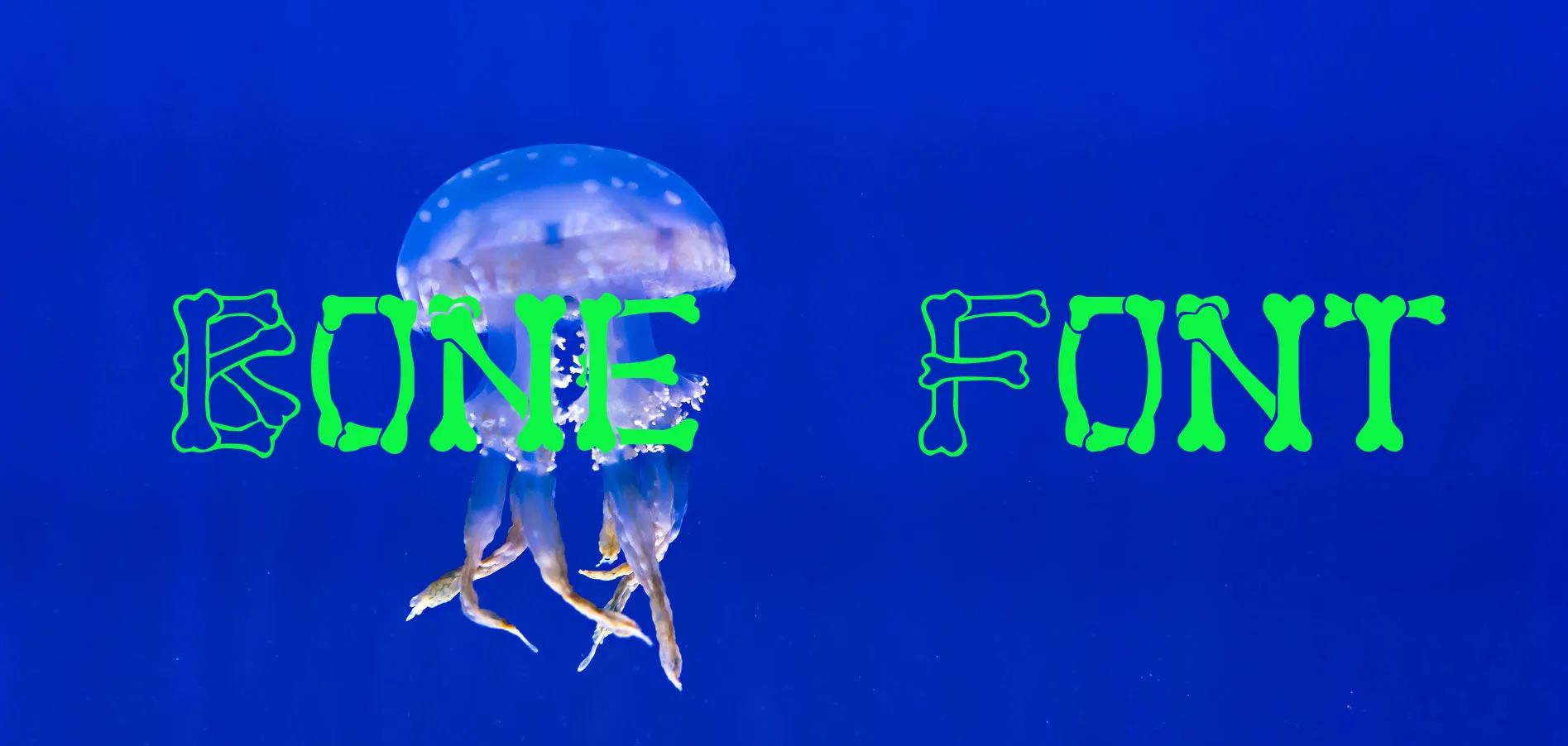
Bone Font Family is a scary but a bit comic and friendly that is perfect for illustrating conceptual parties, horror movies posters, and Scary Books Covers. This typeface is not about scaring the daylights out of your friends. The designer of this typeface is Haunted House Fonts.
This decorative font has one regular style that is providing 62 scarry characters including uppercase, lowercase, numbers, general punctuation, symbols, and many other icons included in this typeface.
| Name | Bone Font |
| Designer | Hunted House Fonts |
| Style | Horror |